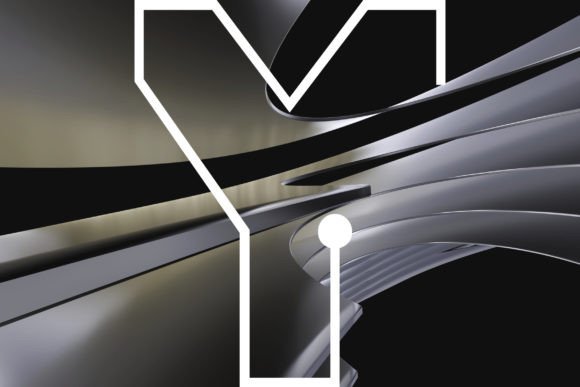
Exwayer: The Techno Display Font for Modern Brand Identity
In a digital landscape saturated with generic sans-serifs and predictable serif revivals, finding a typeface that immediately commands attention without sacrificing legibility is a constant challenge. This is where Exwayer steps in. It is not just another decorative addition to your design assets; it is a deliberate, sharp, and distinctly modern display font designed to inject a cool, techno aesthetic into any project. Whether you are crafting a brand identity for a tech startup, designing editorial layouts for a lifestyle magazine, or creating social media graphics that need to stop the scroll, Exwayer offers a unique visual voice that feels both futuristic and grounded.
The appeal of Exwayer lies in its precise geometric construction and its ability to convey sophistication through minimalism. Unlike script fonts or handwritten fonts that rely on organic flow, Exwayer leans into the structured world of modern typography. Its lines are clean, its angles are intentional, and its overall personality is one of confident precision. For designers and entrepreneurs alike, this means less time spent tweaking kerning and more time focusing on the message itself. The font’s inherent structure allows it to serve as a powerful tool for establishing visual hierarchy, ensuring that your most important headlines pop while maintaining a cohesive look across various mediums.
Visual Personality and Design Characteristics
To understand why Exwayer works so well, we first need to look at what makes it tick visually. As a display font, it is engineered for impact at larger sizes. It shares some DNA with the broader category of sans serif font designs but distinguishes itself through specific stylistic choices that give it a "techno" edge. The letterforms often feature slight angular cuts or unique terminal shapes that prevent them from feeling too sterile or corporate. Instead, they feel dynamic, like a piece of high-end industrial equipment or a sleek interface element.
This aesthetic is particularly effective for projects that want to avoid the coldness often associated with pure geometric typefaces. Exwayer strikes a balance between technical precision and creative flair. It avoids the overly playful nature of many creative font options, making it suitable for professional contexts where credibility matters. However, it also steers clear of the traditional stiffness of classic serif font designs, offering a contemporary alternative that resonates with audiences accustomed to digital-first communication. The result is a typeface that feels native to the web but retains enough tactile quality to shine in print applications.
When you select Exwayer, you are choosing a font that communicates innovation. It suggests that the brand or project behind it is forward-thinking, organized, and detail-oriented. This psychological association is crucial for logo design and branding. A logo is often the first point of contact between a business and its customers, and using a distinctive commercial font like Exwayer can help establish immediate recognition. It signals that the entity is not following trends but setting them, which is a powerful statement in crowded markets.
Practical Applications Across Creative Industries
One of the strongest arguments for incorporating Exwayer into your workflow is its versatility. While it shines in digital environments, its robust structure ensures it performs equally well in physical formats. Here is how it translates across different sectors:
- Web Design and UI Elements: In an era where screen real estate is precious, Exwayer’s clarity makes it ideal for hero sections, navigation headers, and call-to-action buttons. Its techno vibe aligns perfectly with SaaS platforms, fintech apps, and creative portfolios.
- Packaging Design: For consumer goods, especially in the tech, beauty, or beverage sectors, Exwayer adds a layer of premium quality. It stands out on shelves because it looks nothing like the standard block letters used by competitors. It turns packaging into a design asset rather than just a container.
- Social Media Graphics: Content creators know that text overlays are critical for engagement. Exwayer provides excellent readability even at smaller sizes when paired correctly, making it perfect for Instagram quotes, YouTube thumbnails, and promotional banners.
- Editorial Design: Magazines and digital publications can use Exwayer for pull quotes, section dividers, and feature article titles. It breaks up dense text blocks effectively, guiding the reader’s eye through the content with authority.
- Business Cards and Stationery: There is something inherently professional about a card that uses a distinct modern typography style. Exwayer on a business card suggests that the holder values aesthetics and professionalism, leaving a lasting impression before a word is even spoken.
Strategic Implementation and Best Practices
Using Exwayer effectively requires more than just dropping it onto a canvas. To maximize its potential, you must consider how it interacts with other elements in your design system. The key to success lies in thoughtful font pairing. Because Exwayer is a strong display font, it works best when balanced with a neutral, highly readable body text. A simple sans serif font or a classic serif font for body copy will allow Exwayer to take center stage without competing for attention.
When evaluating project fit, ask yourself if the tone matches the font’s personality. Exwayer is cool, detached, and precise. It may not be the right choice for a rustic bakery or a children’s educational app, where warmth and approachability are paramount. However, for brands aiming for a sleek, minimalist, or high-tech image, it is an excellent match. Always test your chosen combinations in context. View your designs at actual size, on mobile screens, and in print proofs to ensure that the contrast between the display font and the body text remains clear.
Finally, remember that consistency builds brand recognition. Once you decide that Exwayer represents your visual identity, use it strategically across all touchpoints. Don’t overuse it—let it breathe. Use it for headlines, key messages, and logos, but let simpler fonts handle the detailed information. This restraint creates a sense of luxury and intentionality. In a world of visual noise, the ability to say less but mean more is a superpower. Exwayer gives you the tools to do exactly that, providing a distinctive, professional, and modern aesthetic that elevates your entire creative output.